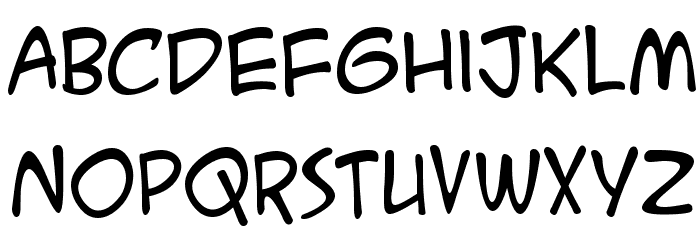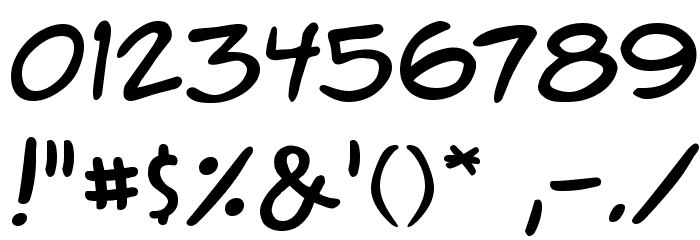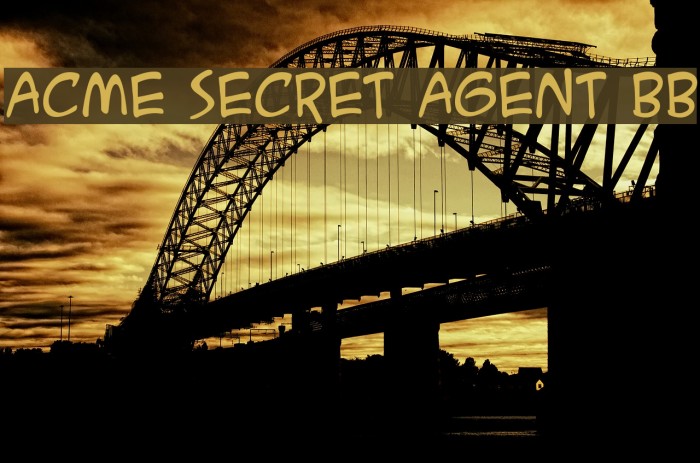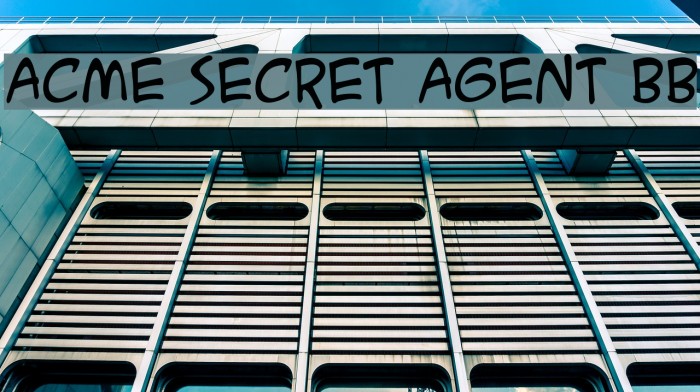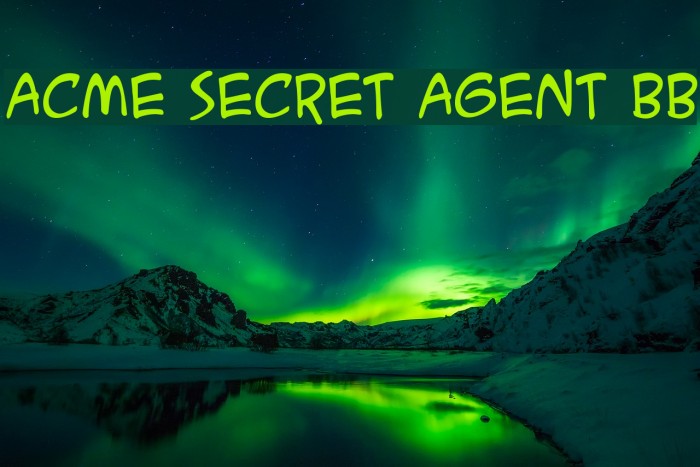
ACME Secret Agent BB Font
This playful and dynamic font features a handwritten style with a casual and informal appearance. The letters are slightly slanted, giving a sense of movement and energy. The strokes are bold and rounded, providing a friendly and approachable feel. The characters are well-spaced, ensuring readability while maintaining a lively aesthetic. This font includes both uppercase and lowercase letters, numerals, and a variety of special characters, making it versatile for different design needs.
A playful, handwritten font with bold, rounded strokes and a casual style.
- Proposed Projects: Ideal for children's books, comic strips, playful branding, and informal invitations.
- Overall Style: Playful
- Use Case: Headlines, Logos, Informal Text